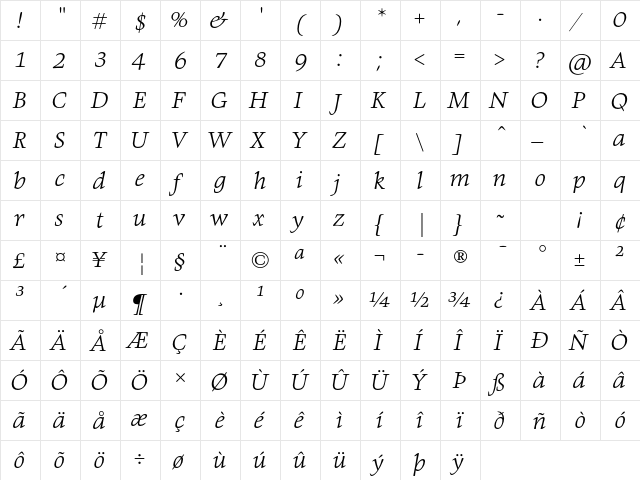
Givens Antiqua Std Light Italic Font Preview
| Designer | George Ryan |
Design Context for Givens Antiqua Std Typeface
Givens Antiqua Std takes a measured approach to typography — its balanced proportions and neutral character make it a reliable workhorse for both digital and print work. Its italic angle brings a sense of urgency and motion to the letterforms. Its slender proportions lend an understated elegance to any composition.
Pro Tip: Use Givens Antiqua Std for emphasis, pull quotes, and subheadings where its slanted energy can add rhythm to the layout.